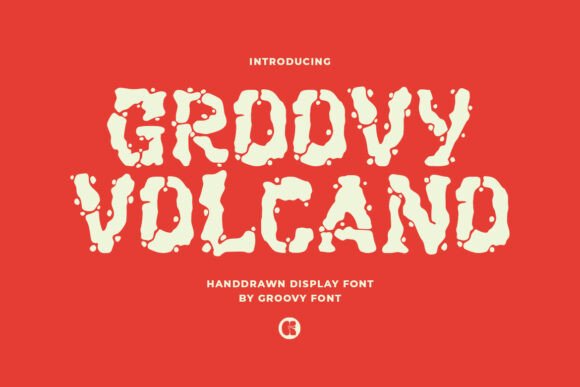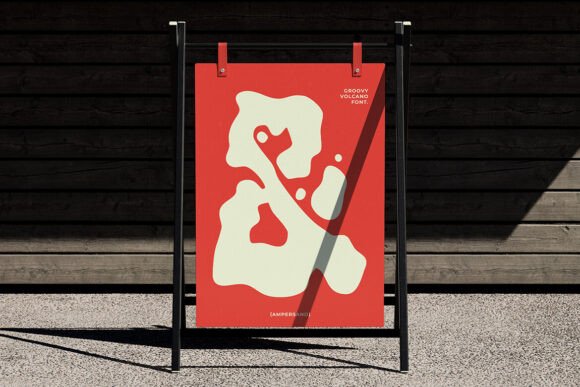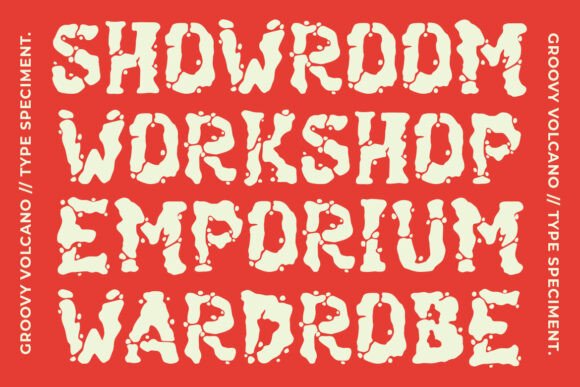
Groovy Volcano Font: A Bold Display Font for Eye-Catching Poster Design
About the Groovy Volcano Font
Make a bold statement with Groovy Volcano Font, a powerful and memorable font. Groovy Volcano is a hand-drawn display font that embodies the rough and rugged appearance of cracked rocks or weathered walls.
The font is ideal for creating eye-catching poster headlines and other design elements.
Its rugged texture makes it perfect for projects needing a bold, rebellious feel – think rock music posters, adventure travel brochures, or branding for outdoorsy products. Avoid using it for body text or UI elements; its irregular letterforms are difficult to read at smaller sizes.
Groovy Volcano pairs well with clean sans-serif fonts like Open Sans for contrast, or a more geometric sans-serif for a modern, edgy look. A classic serif like Garamond could also work, providing a sophisticated counterpoint to the font’s raw energy.
The font’s core personality is undeniably bold and rugged, conveying a sense of strength and untamed energy. It’s best suited for impactful headlines and short bursts of text where its unique character can shine.
Groovy Volcano Font Usage Examples
Groovy Volcano Font Example